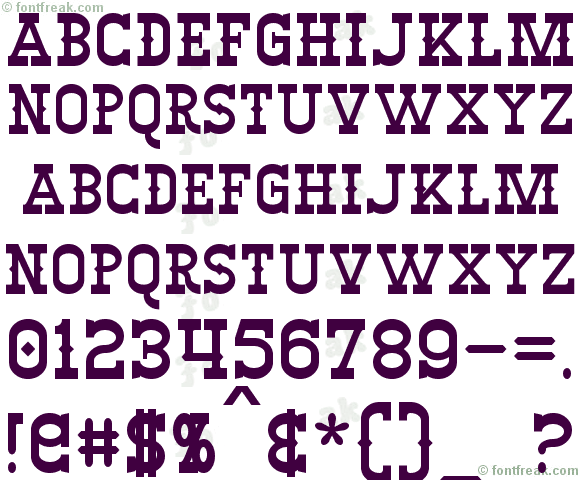
Winslett
Winslett, designed by Neale Davidson in 2012, is a captivating display font that falls under the category of decorative typefaces. Its unique design features a blend of bold, playful strokes that evoke a sense of whimsy while maintaining a professional appeal. The font exhibits moderate contrast in stroke weight, giving it a dynamic presence that stands out in various applications. The spacing is well-balanced, allowing for readability even at larger sizes, making it an excellent choice for eye-catching designs.
This font shines in various use cases. It is particularly well-suited for wedding invitations, where its elegant yet playful character can add a charming touch to the special occasion. Additionally, Winslett works beautifully on movie posters, helping to create an inviting atmosphere that draws viewers in. Restaurant menus can also benefit from this font, as it adds a distinctive flair that enhances the dining experience. Other potential applications include branding for boutique businesses and promotional materials, where a unique visual identity is essential.
The target audience for Winslett includes graphic designers, small business owners, and content creators who are looking for a font that combines creativity with functionality. Its versatility allows it to adapt to various themes and styles, making it a valuable addition to any designer's toolkit.
What sets the Winslett font apart is its ability to harmonize playful elements with a polished finish, making it ideal for projects that require a modern yet approachable feel. With the Winslett font free download available, designers and creatives can easily incorporate this distinctive typeface into their work, ensuring that their projects stand out in an increasingly crowded visual landscape.